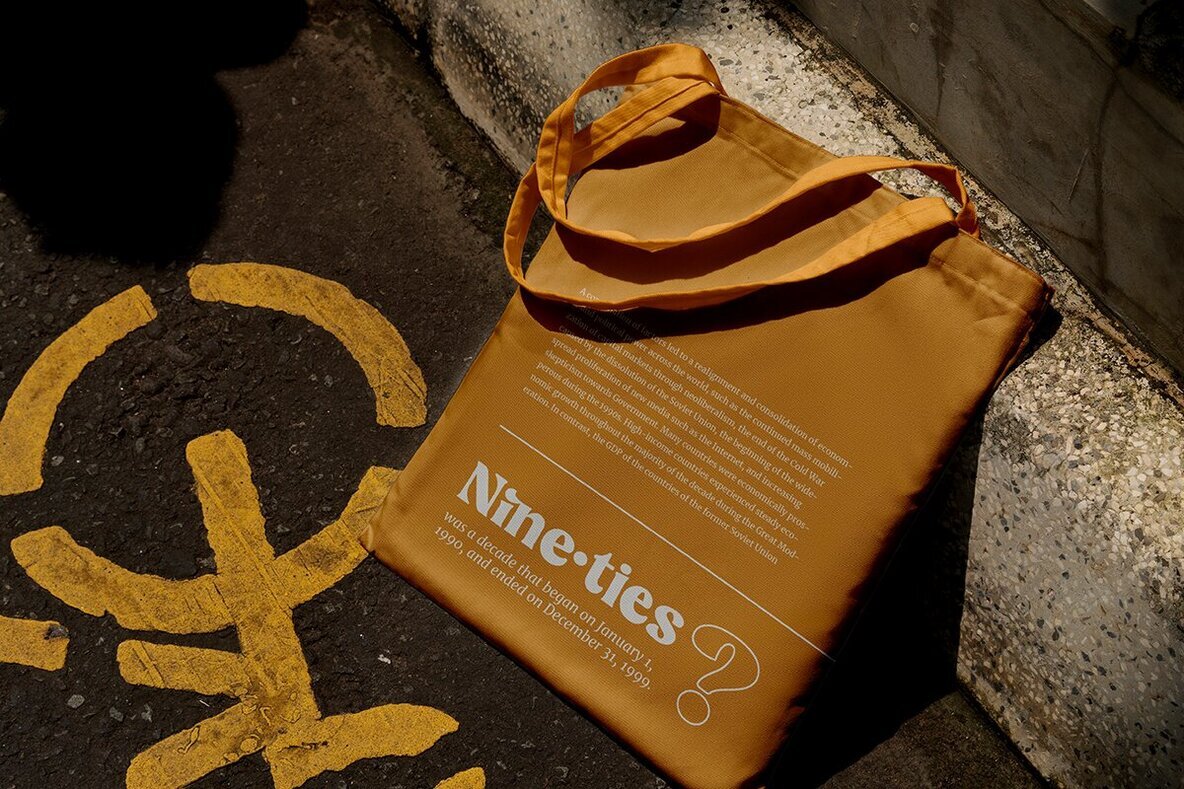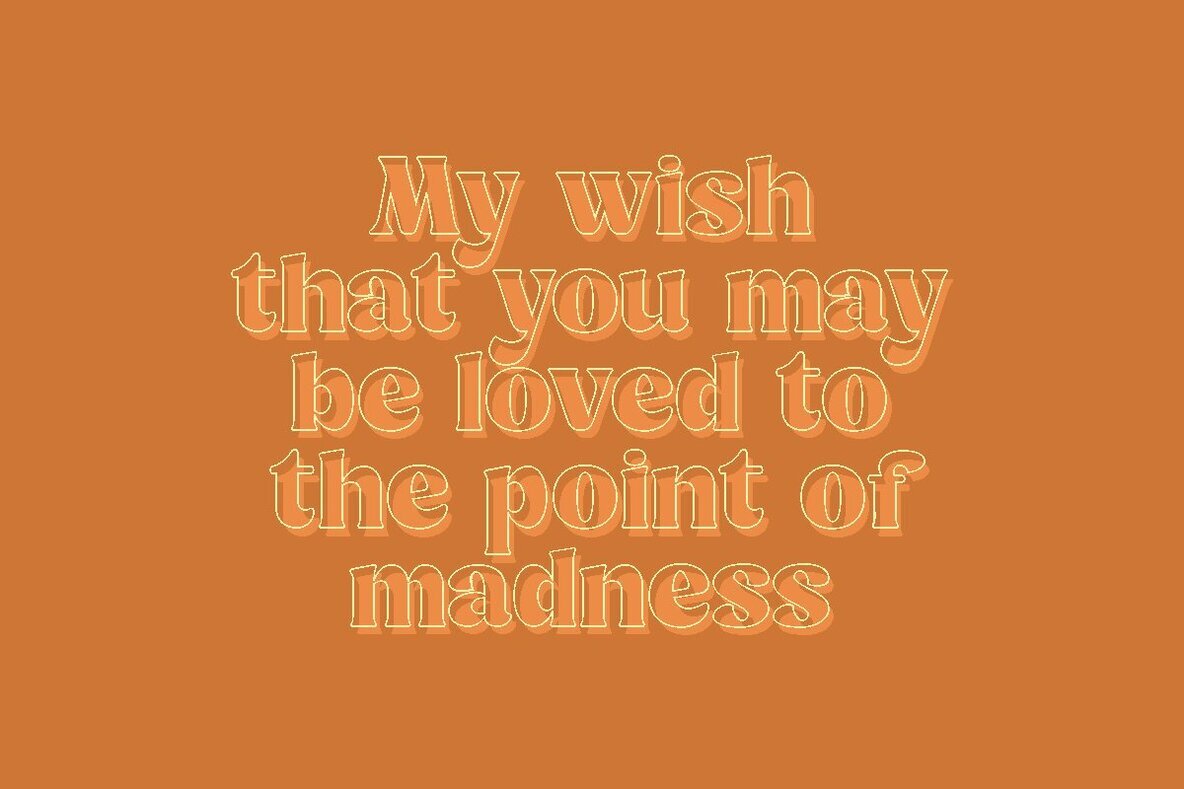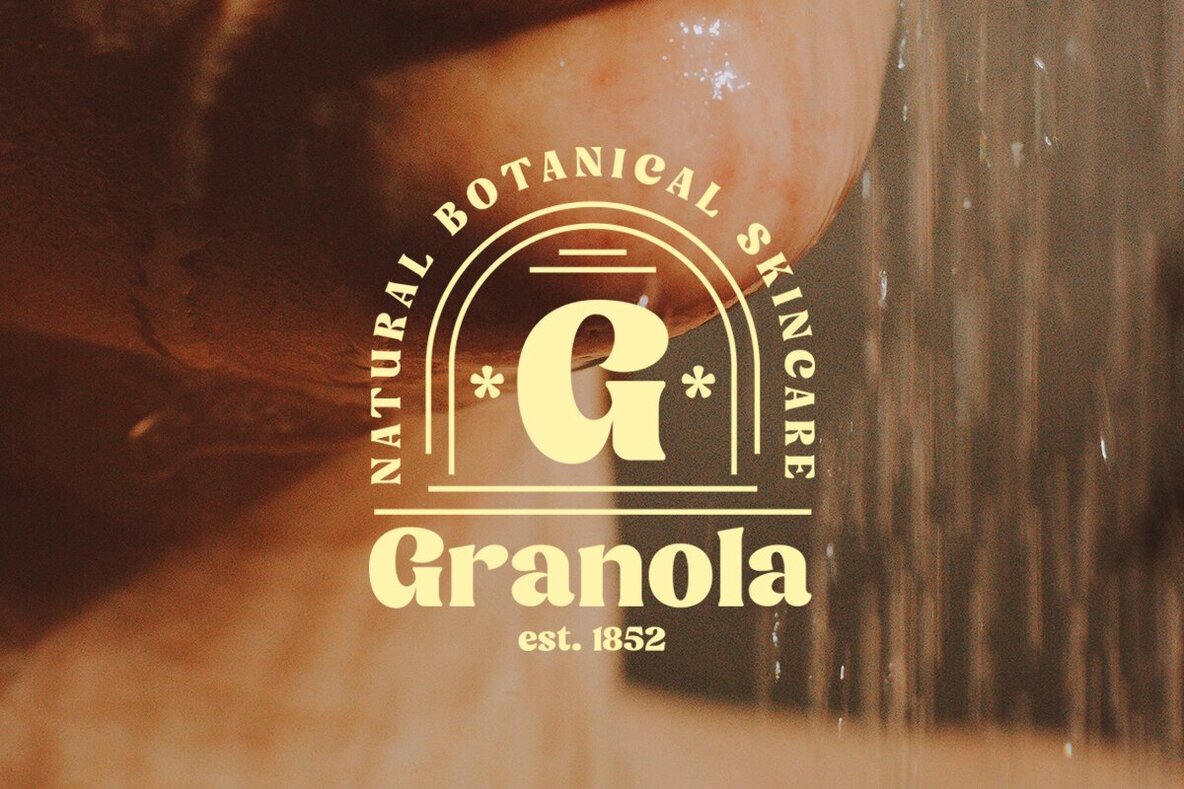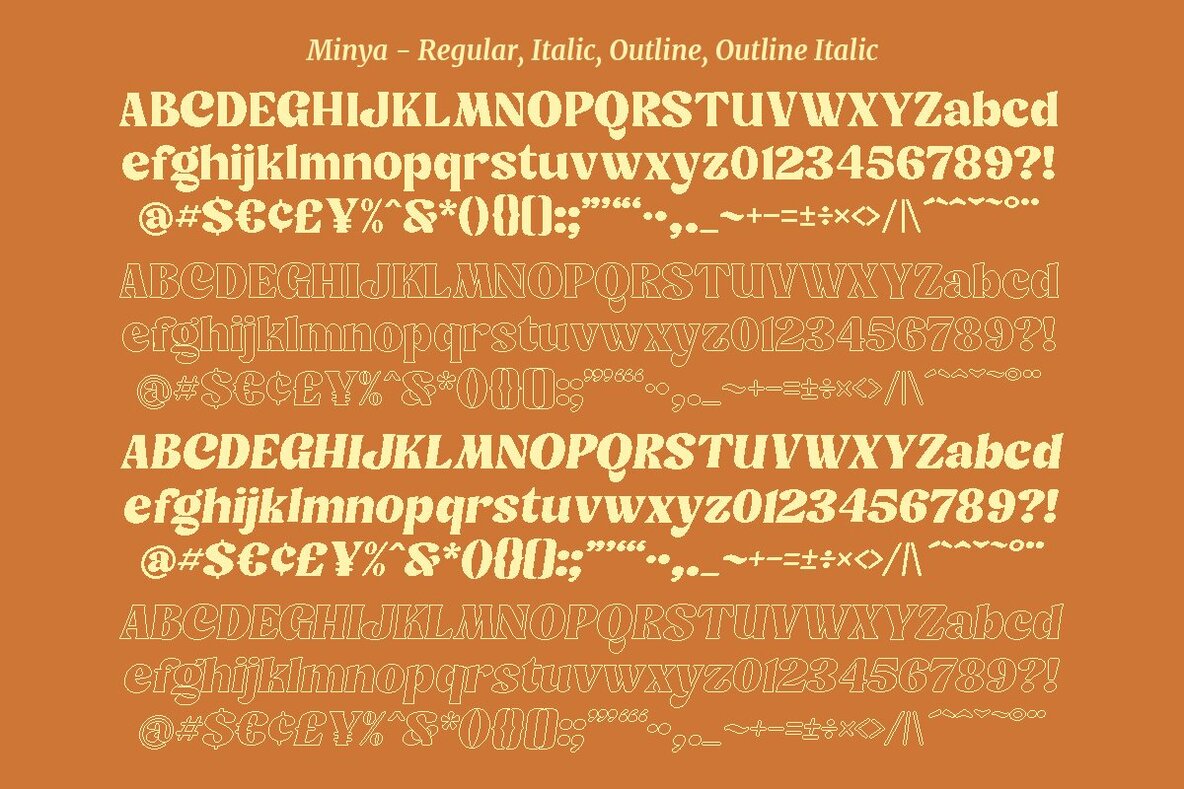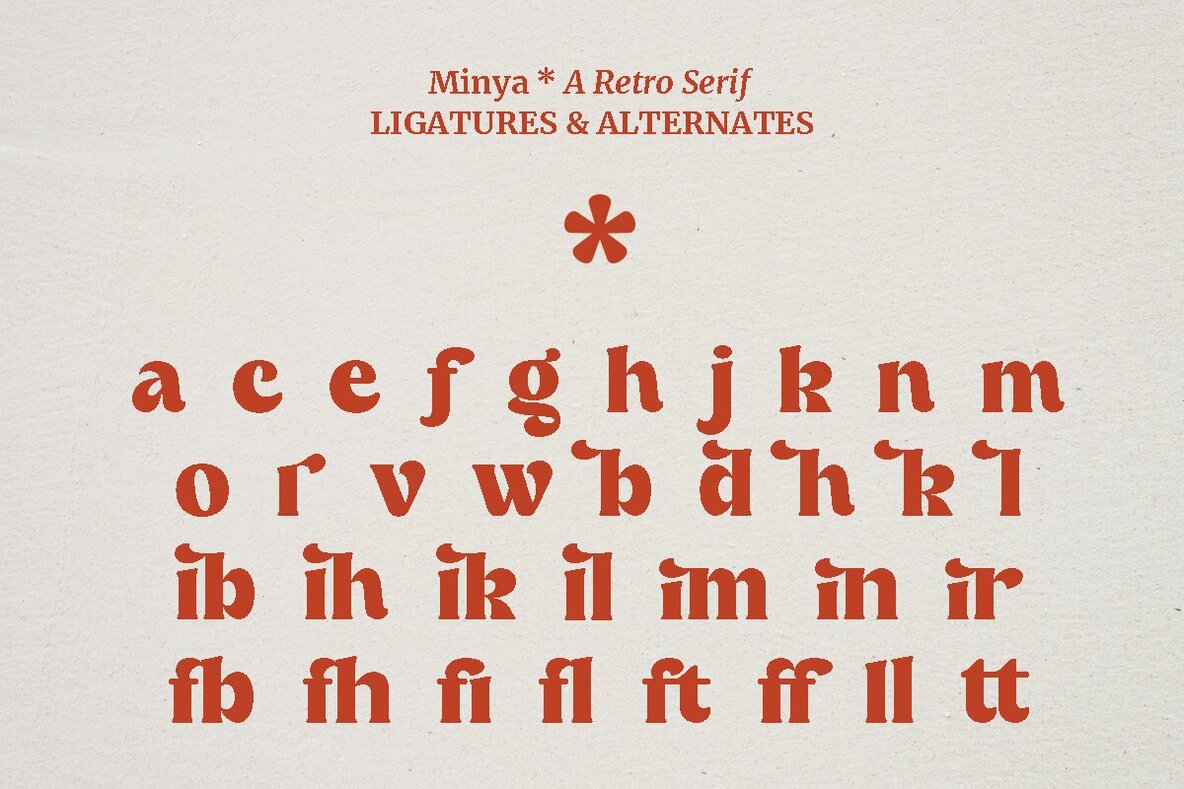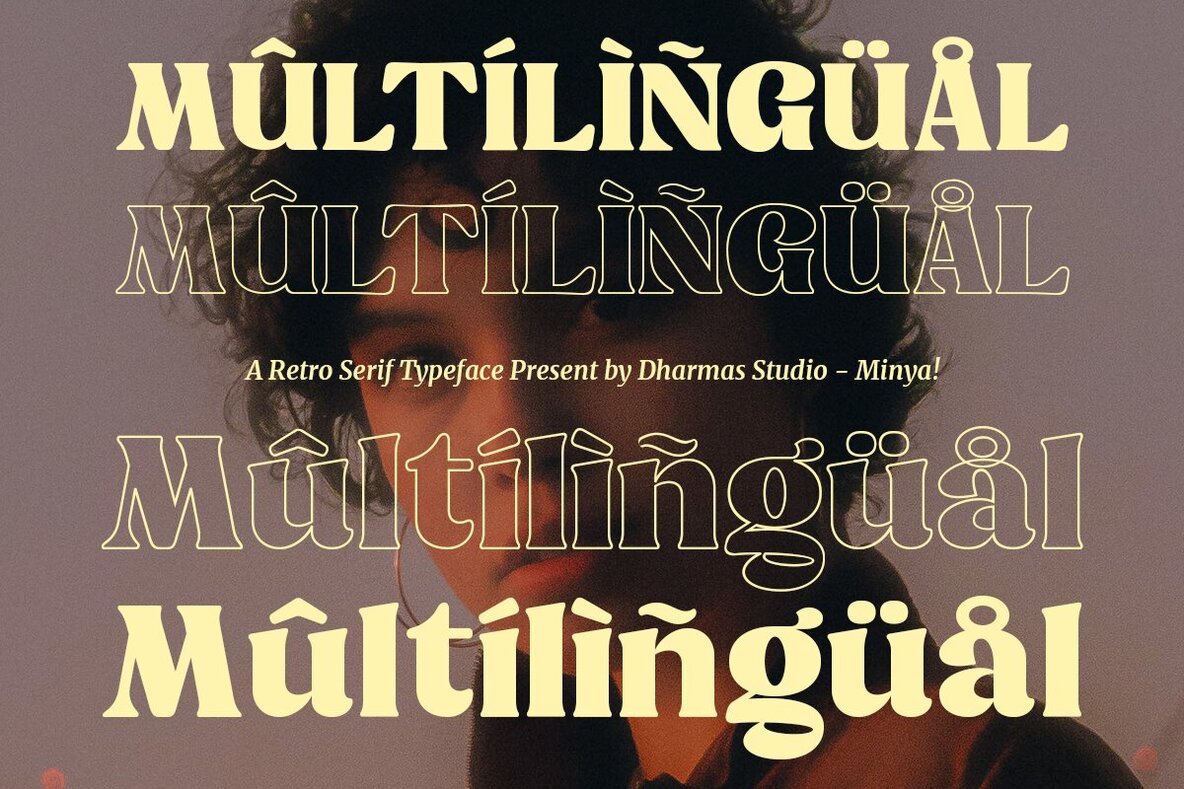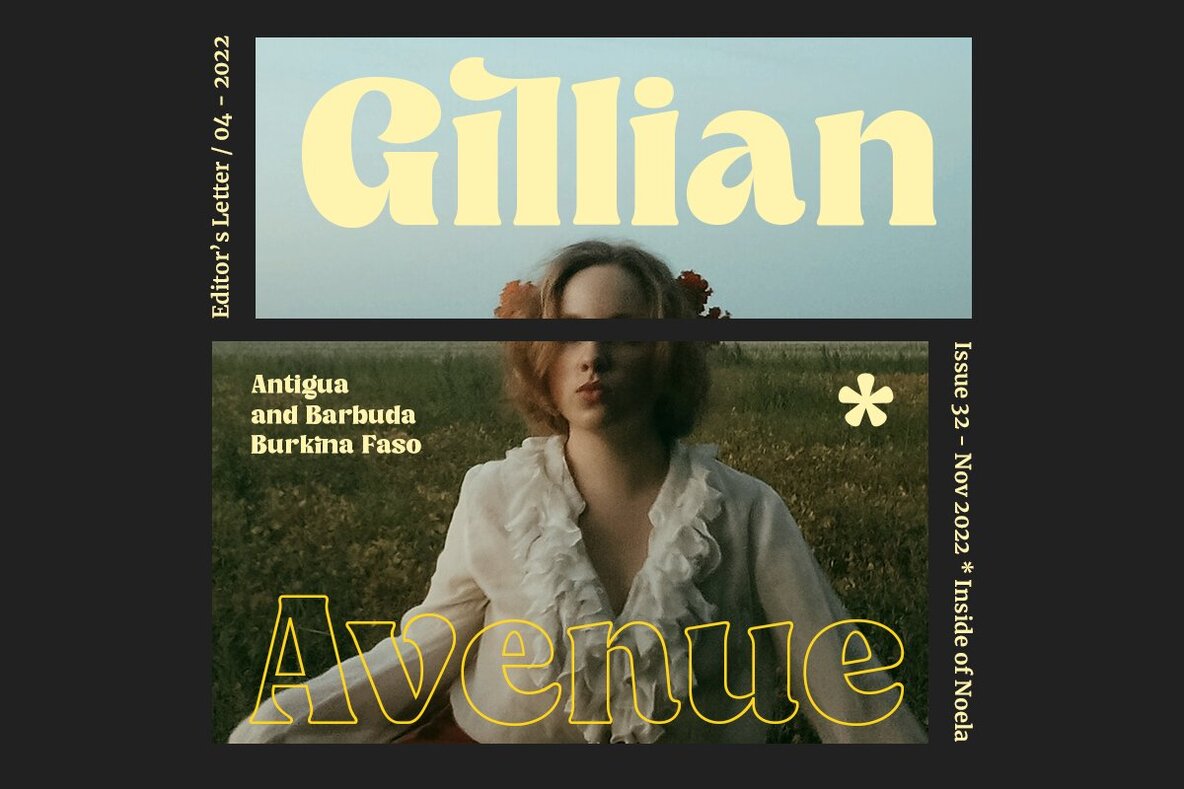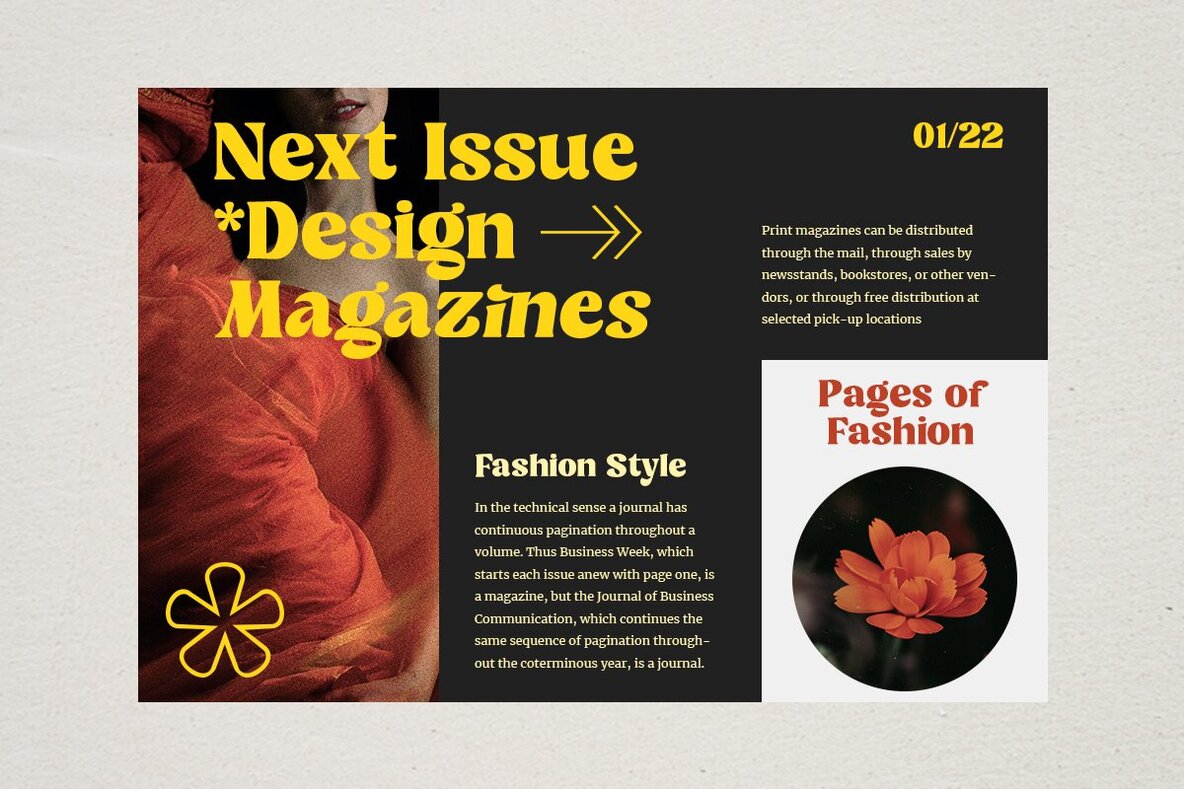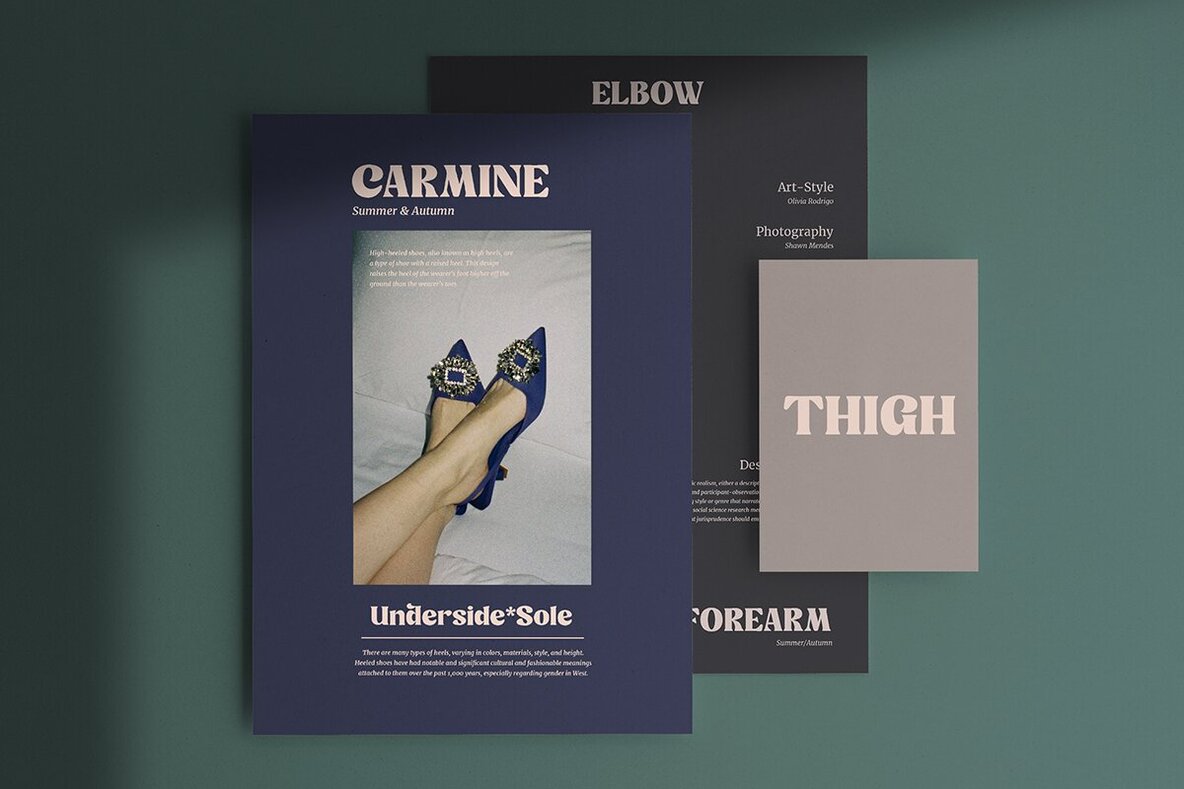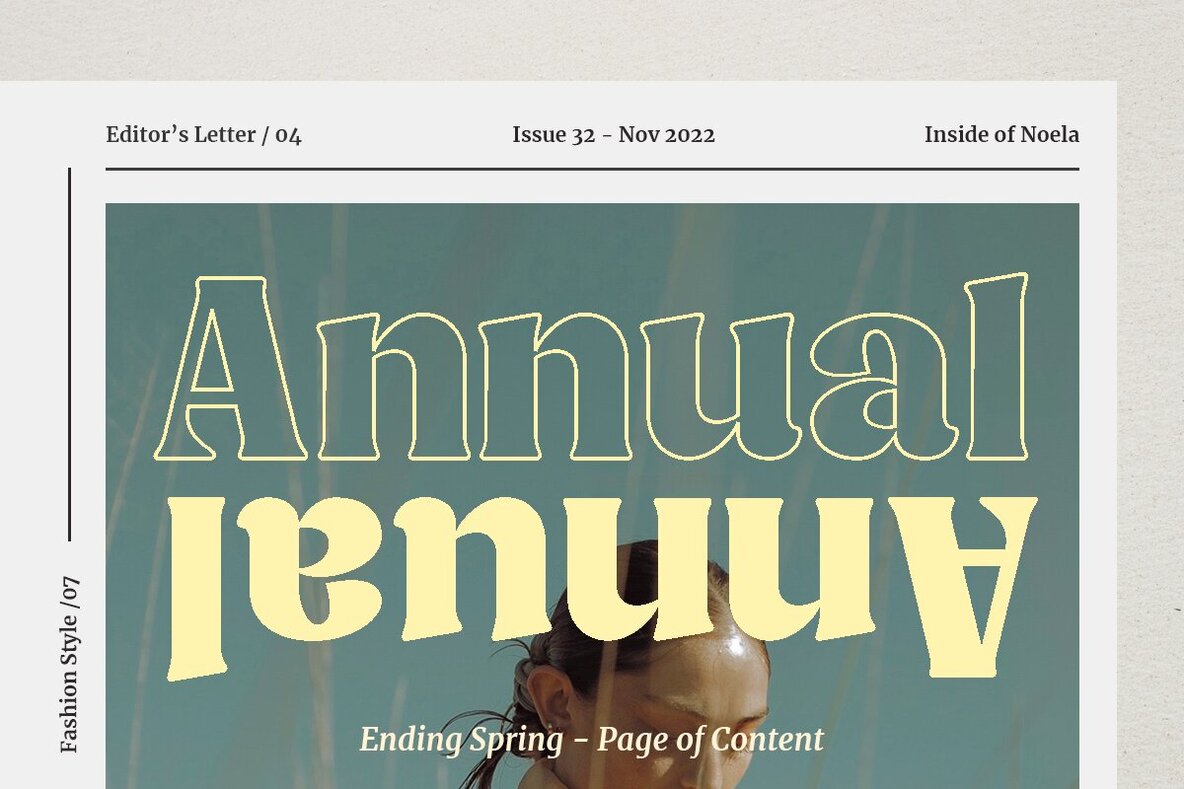
Minya Font
Minya Regular
Minya Italic
Minya Outline
Minya Outline Italic
Step into a world where the classic meets the contemporary with Minya, a serif font that effortlessly combines modernity and nostalgia. Its unique outline version is perfectly crafted for creating stylishly nostalgic yet sophisticated designs—ideal for logos, packaging, editorials, and a wide array of projects demanding high legibility. With more than 34 distinctive alternates and ligatures, Minya transforms any logo or business card into a vintage masterpiece. Its italic version further adds versatility, ensuring your creative endeavors are both dynamic and captivating.Minya: A Timeless Serif Embracing Modern and Retro Styles